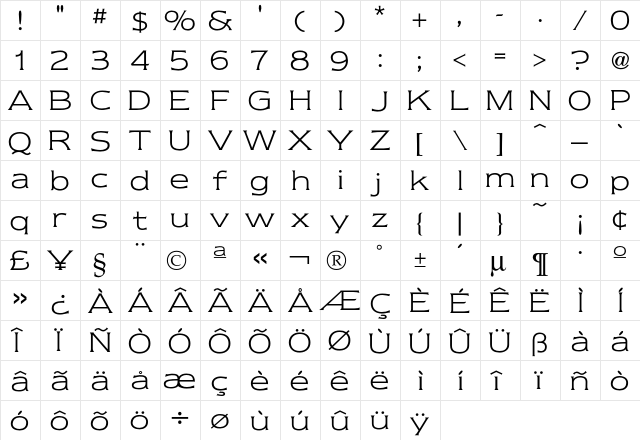
Newtext Light
Design Context for Newtext Typeface
Newtext offers clean, dependable letterforms without strong stylistic allegiance, making it a practical choice for designers who need flexibility. The delicate stroke weight brings airiness and refinement to layouts.
Pro Tip: Use Newtext in both headline and body roles to test its range before committing to a single application.